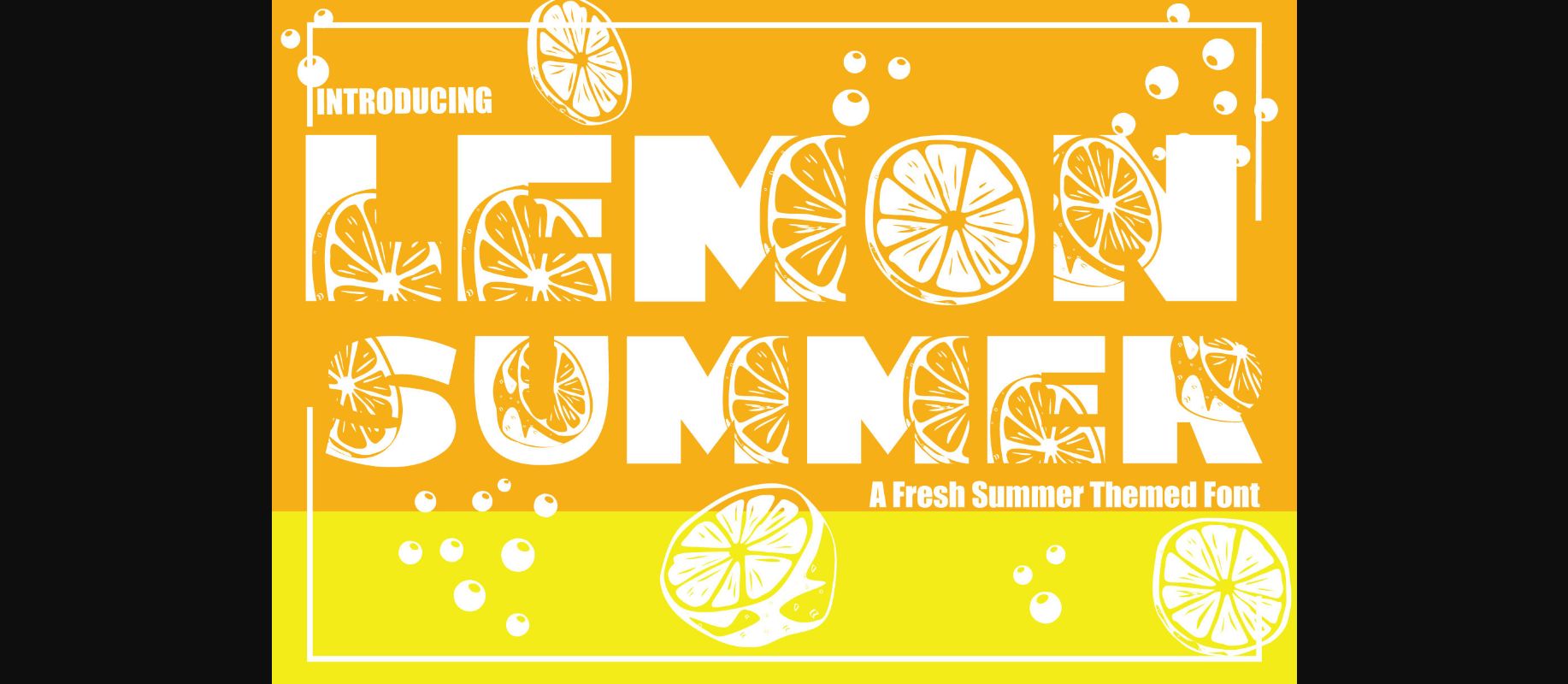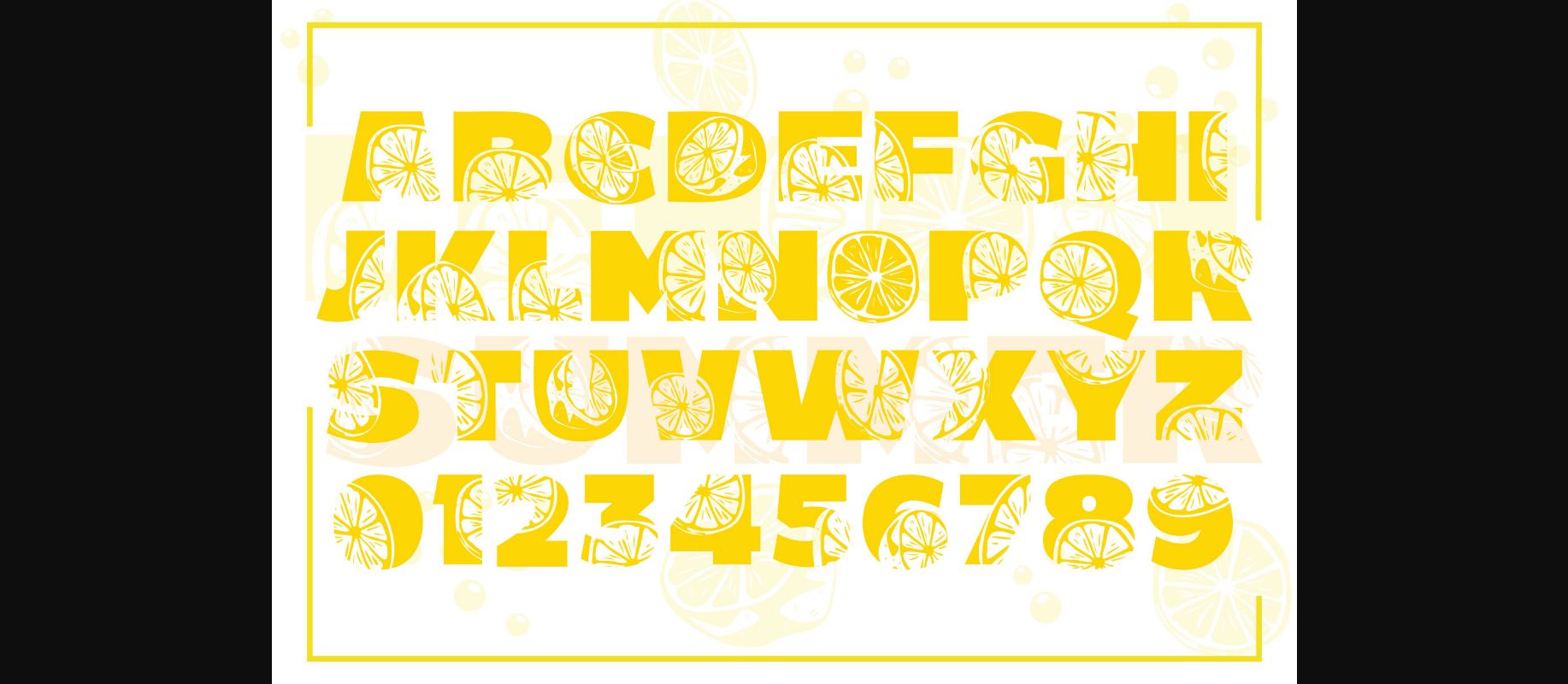
About Lemon Summer Font
Lemon Summer is a cool, bold and summery decorative font, featuring slices of lemon on each character. No matter the topic, this font will be an incredibly asset to your fonts’ library, as it has the potential to elevate any creation.